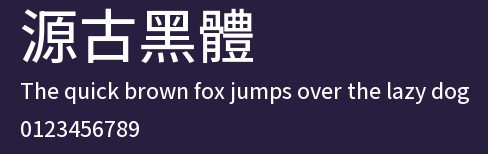
• Font Name: 源古黑體
• Designer: Ryoko NISHIZUKA 西塚涼子 (kana, bopomofo & ideographs); Paul D. Hunt (Latin, Greek & Cyrillic); Sandoll Communications 산돌커뮤니케이션, Soo-young JANG 장수영 & Joo-yeon KANG 강주연 (hangul elements, letters & syllables)
• Manufacturer: Adobe
• Description: Dr. Ken Lunde (project architect, glyph set definition & overall production); Masataka HATTORI 服部正貴 (production & ideograph elements)
About 源古黑體.ttf
源古黑體.ttf is a modern, elegant sans-serif font designed for ultimate readability and visual harmony. Perfect for branding, headlines, web design, and print materials.